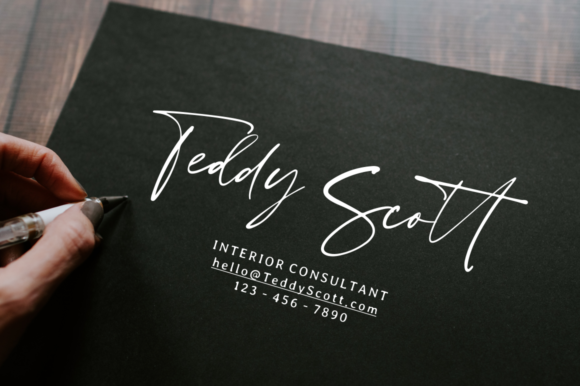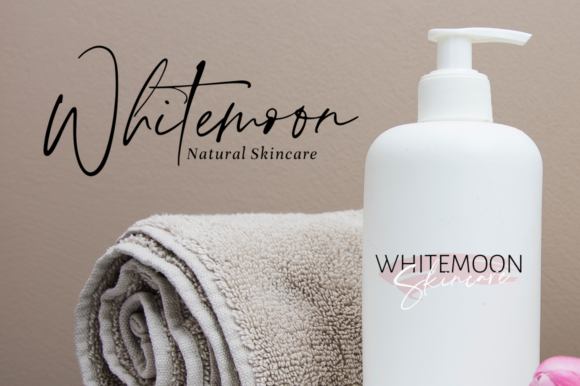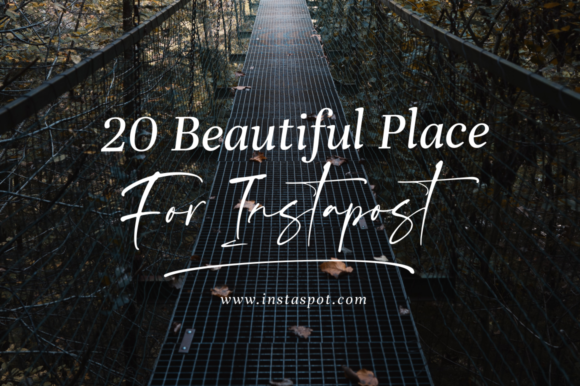
Introduction to Scatter Ink Font
Scatter Ink is a lovely and timeless handwritten font.
Key Features of Scatter Ink Font
Why Choose Scatter Ink Font?
Scatter Ink Font offers exceptional quality and versatility, making it a valuable addition to your design toolkit. Whether you’re creating for personal projects or commercial use, Scatter Ink Font delivers professional results.